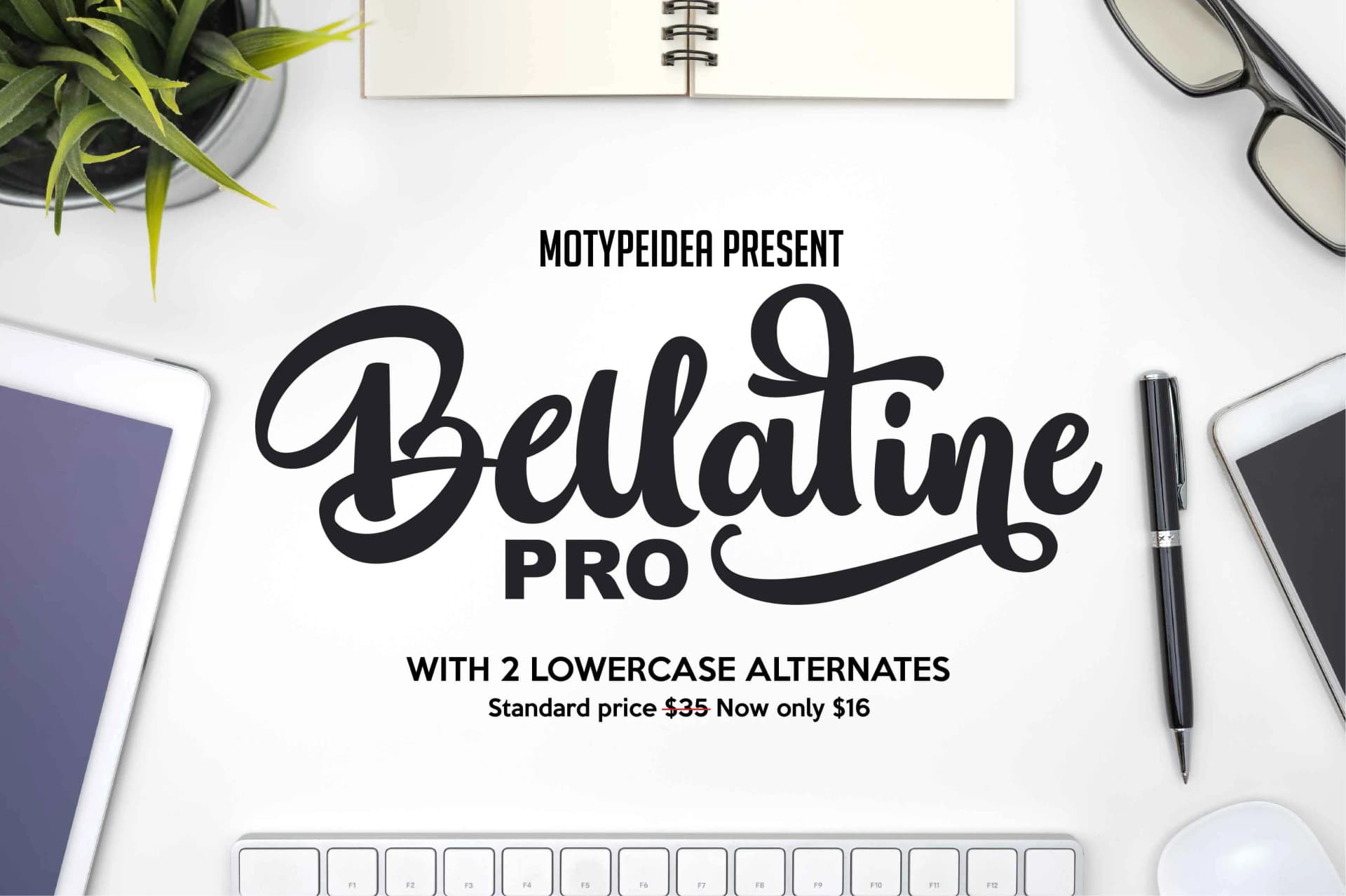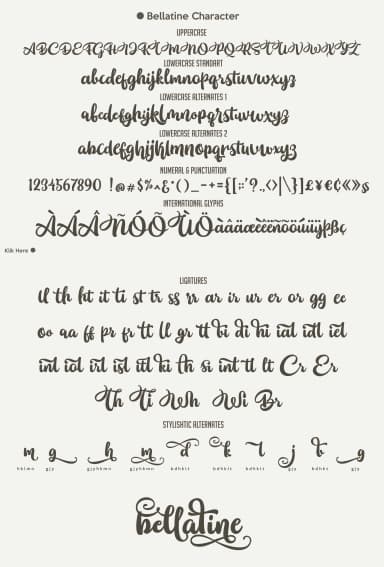
Bellatine by Motypeidea is a flowing script typeface that brings handwritten warmth and character to contemporary design work. Its graceful strokes and organic letterforms deliver an authentic, personal touch that resonates deeply across creative industries and diverse design disciplines. The font excels in wedding invitation suites, where its elegant curves establish an intimate, romantic atmosphere, as well as in boutique product packaging and Etsy label designs that benefit from its handcrafted appeal. DIY enthusiasts and crafters find it particularly valuable for custom vinyl decals, personalized stationery projects, and hand-drawn branding applications. The typeface includes two alternate character sets, Bellatine Pro Alt 1 and Bellatine Pro Alt 2, which expand your design vocabulary with stylistic variation and glyph options for significantly greater creative flexibility. Whether you're designing engagement announcements, creating branded social media graphics for beauty and wellness brands, crafting event signage and place card designs, or working on greeting cards, thank-you notes, and editorial layouts, Bellatine adapts gracefully to projects that demand both sophistication and genuine warmth. Its approachable elegance brings a distinctive personality to branding materials while maintaining a refined, polished appearance throughout. Discover Bellatine Font on Creative Fabrica and add this distinctive handwritten voice to your creative toolkit.
- Elegant, Flowing, Bellatine
Bellatine Font is a script font that shines as a display or heading face. Pair it with a clean sans-serif or serif font for body text β the contrast creates a clear hierarchy while the two styles stay balanced and easy to read.
Bellatine Font
by Motypeidea